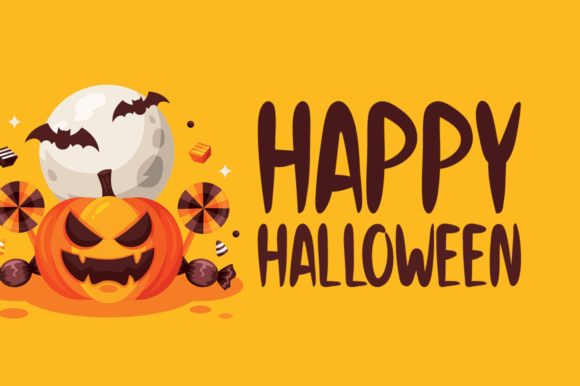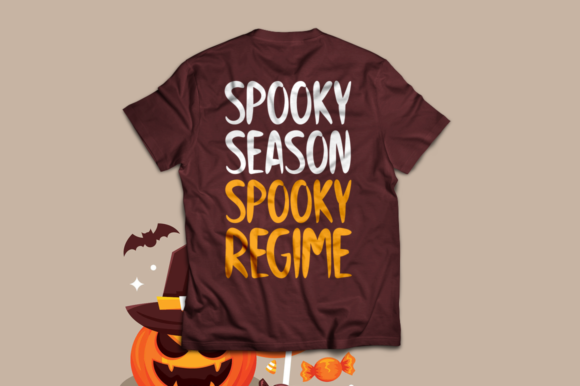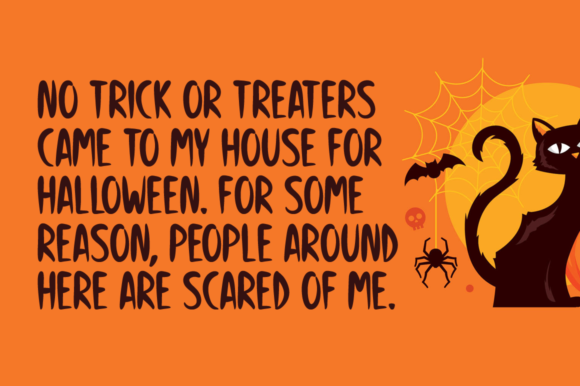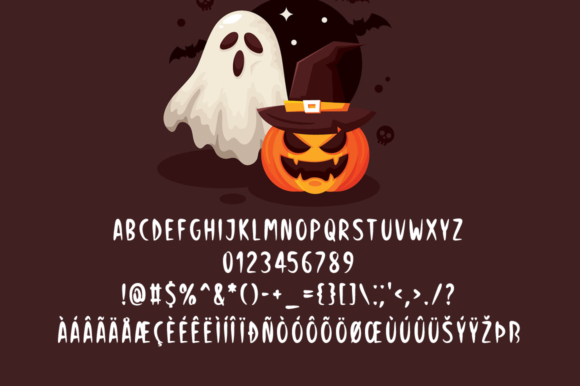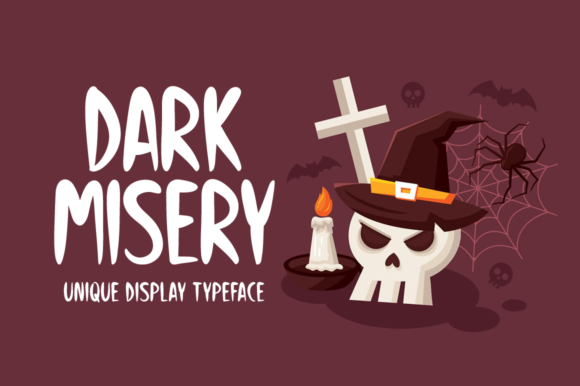
Unleash the Spookiness: Exploring the Dark Misery Font
In the realm of typography, fonts play a crucial role in setting the tone and atmosphere of a design project. For those who appreciate the darker side of creativity, the Dark Misery Font is a simple yet spooky display font that is sure to captivate. This original look will appeal to a wide range of crafty ideas, from letterheads and titles, to stationery. In this article, we’ll dive into the world of Dark Misery Font, exploring its features, uses, and benefits for designers and crafters.
What is Dark Misery Font?
Dark Misery Font is a display font designed to evoke a sense of eeriness and mystery. Its unique, hand-crafted design makes it perfect for projects that require a touch of darkness and sophistication. The font’s simplicity is deceptive, as it packs a punch with its bold and eye-catching appearance. Whether you’re working on a Halloween-themed project or simply want to add some edge to your design, Dark Misery Font is an excellent choice.
Key Features of Dark Misery Font
- Simple yet Spooky Design: Dark Misery Font boasts a clean and straightforward design that’s both elegant and unsettling.
- Display Font: This font is specifically designed for display purposes, making it ideal for titles, headings, and other prominent text elements.
- Crafty Ideas: Dark Misery Font is versatile and can be used for various crafty projects, such as letterheads, stationery, and more.
- Original Look: The font’s unique design sets it apart from other fonts, ensuring your project stands out from the crowd.
Uses of Dark Misery Font
Dark Misery Font is perfect for a wide range of design projects, including:
- Halloween-themed Projects: Create spooky invitations, posters, and decorations with Dark Misery Font.
- Stationery and Letterheads: Add a touch of elegance and sophistication to your stationery and letterheads.
- Titles and Headings: Use Dark Misery Font to create eye-catching titles and headings for your blog posts, articles, or website.
- Graphic Design: Incorporate Dark Misery Font into your graphic design projects, such as brochures, flyers, and posters.
Benefits of Using Dark Misery Font
So, why choose Dark Misery Font for your design project? Here are some benefits:
- Unique Design: Dark Misery Font’s original look ensures your project stands out from the crowd.
- Easy to Read: Despite its spooky design, Dark Misery Font is easy to read, making it perfect for display purposes.
- Versatile: This font can be used for various design projects, from digital to print.
- Time-saving: With Dark Misery Font, you can quickly create professional-looking designs without spending hours on typography.
Tips for Using Dark Misery Font
To get the most out of Dark Misery Font, follow these tips:
- Use it Sparingly: Dark Misery Font is a display font, so use it sparingly to create emphasis and visual interest.
- Pair it with Other Fonts: Experiment with pairing Dark Misery Font with other fonts to create a unique and visually appealing design.
- Adjust Font Size and Color: Play with font size and color to create a design that pops.
Dark Misery Font is a simple yet spooky display font that’s perfect for designers and crafters looking to add a touch of darkness and sophistication to their projects. With its unique design, versatility, and ease of use, Dark Misery Font is an excellent choice for a wide range of design projects. Whether you’re working on a Halloween-themed project or simply want to create a design that stands out, Dark Misery Font is sure to unleash your creativity and inspire your next design endeavor.